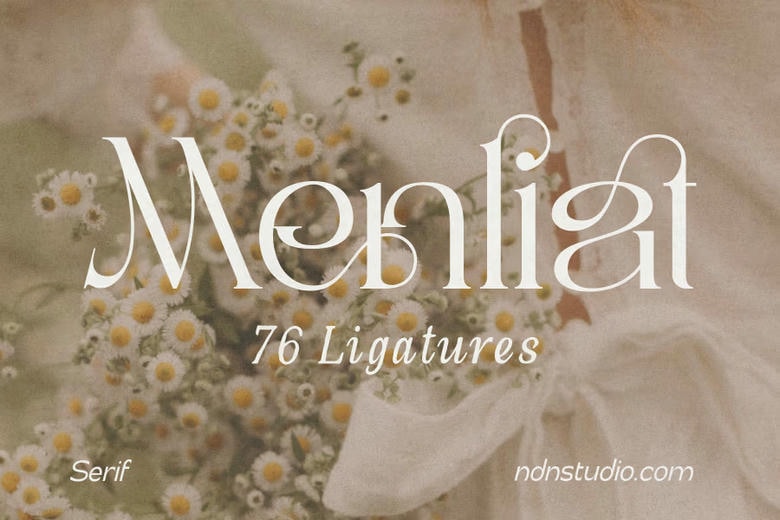
Menliat Font
Menliat is a serif typeface that combines classic style with artistic touches. It includes 76 carefully designed ligatures, which help words flow smoothly and give each one a unique look.
With bold strokes, soft curves, and stylish alternates, Menliat works well for luxury branding, wedding invitations, fashion magazines, beauty packaging, logos, social media, and other high-end products.
Menliat Serif Font